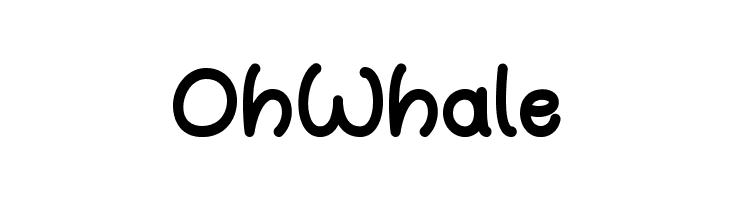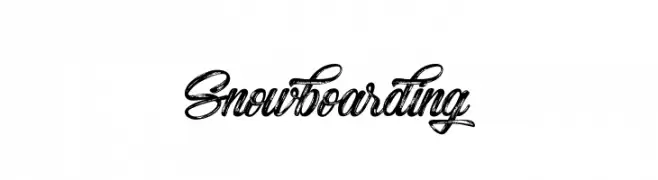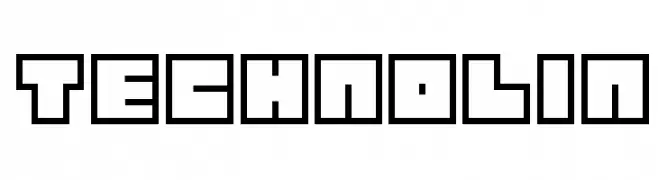
A playful, handwritten font with smooth curves and dynamic letterforms.
A playful, hand-drawn font with rounded, bold characters and a whimsical style.
A bold, geometric font with a futuristic and tech-inspired design.
A modern, elegant script font with flowing, cursive lines and a sophisticated style.
A bold, cursive script with a hand-drawn, textured appearance.